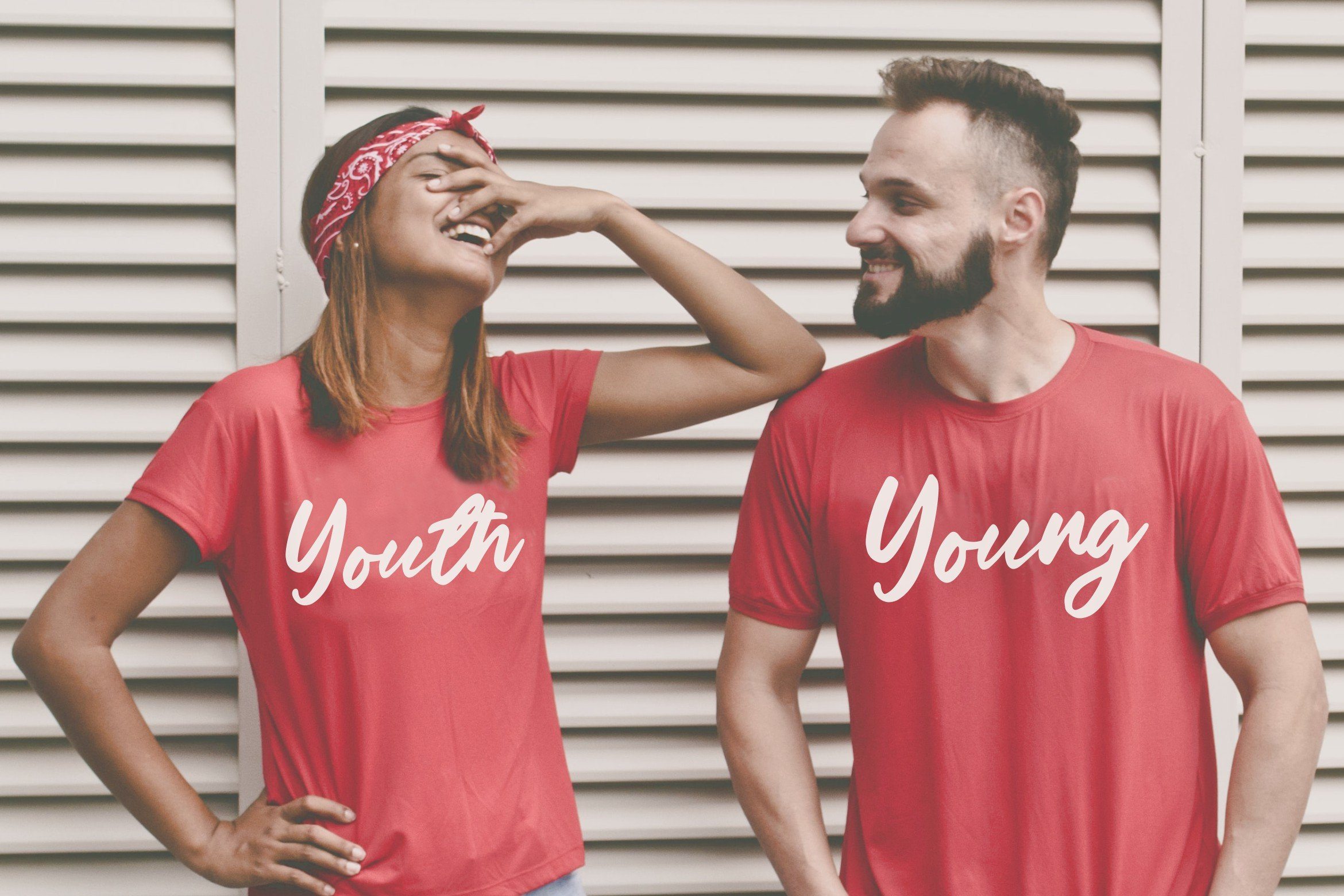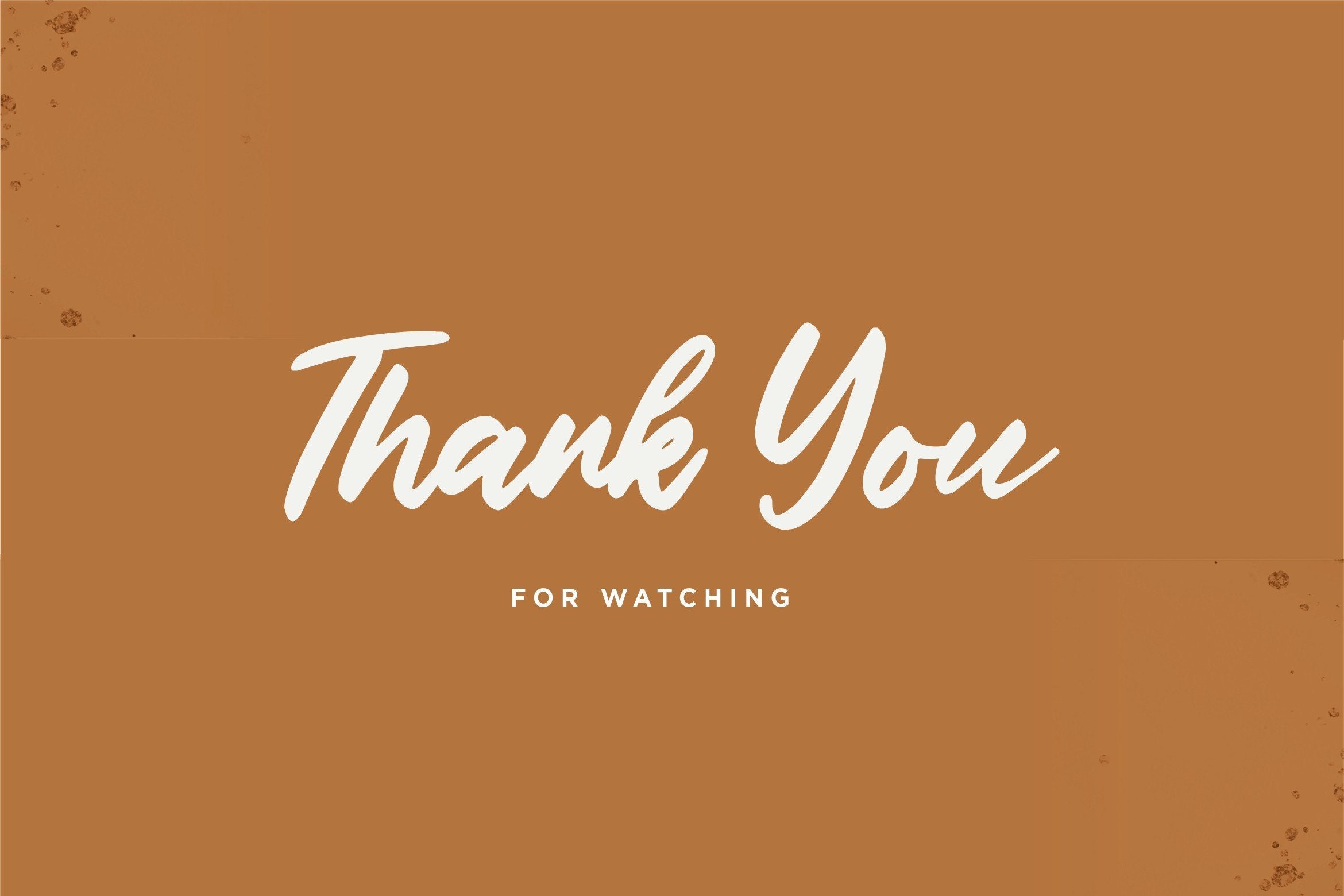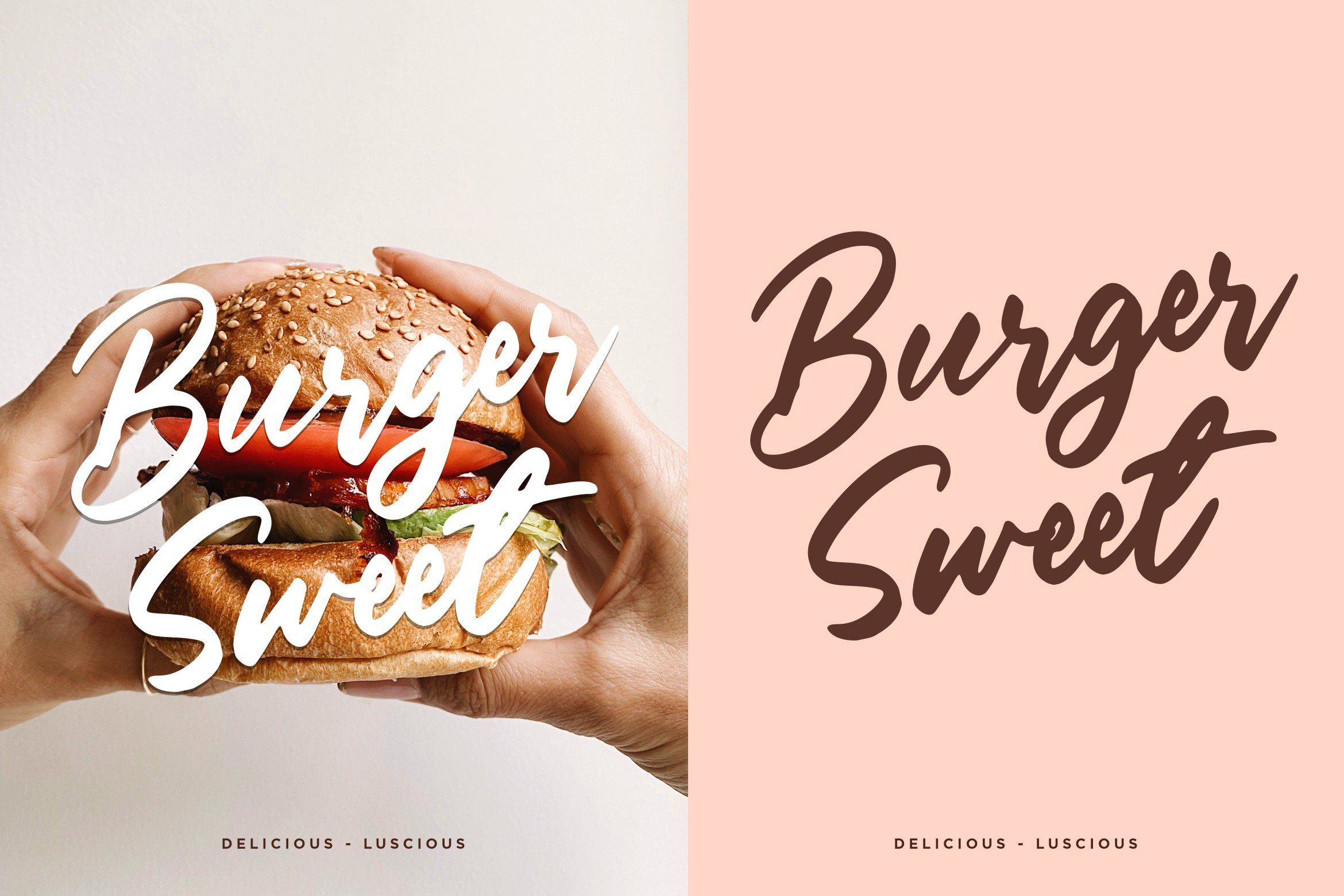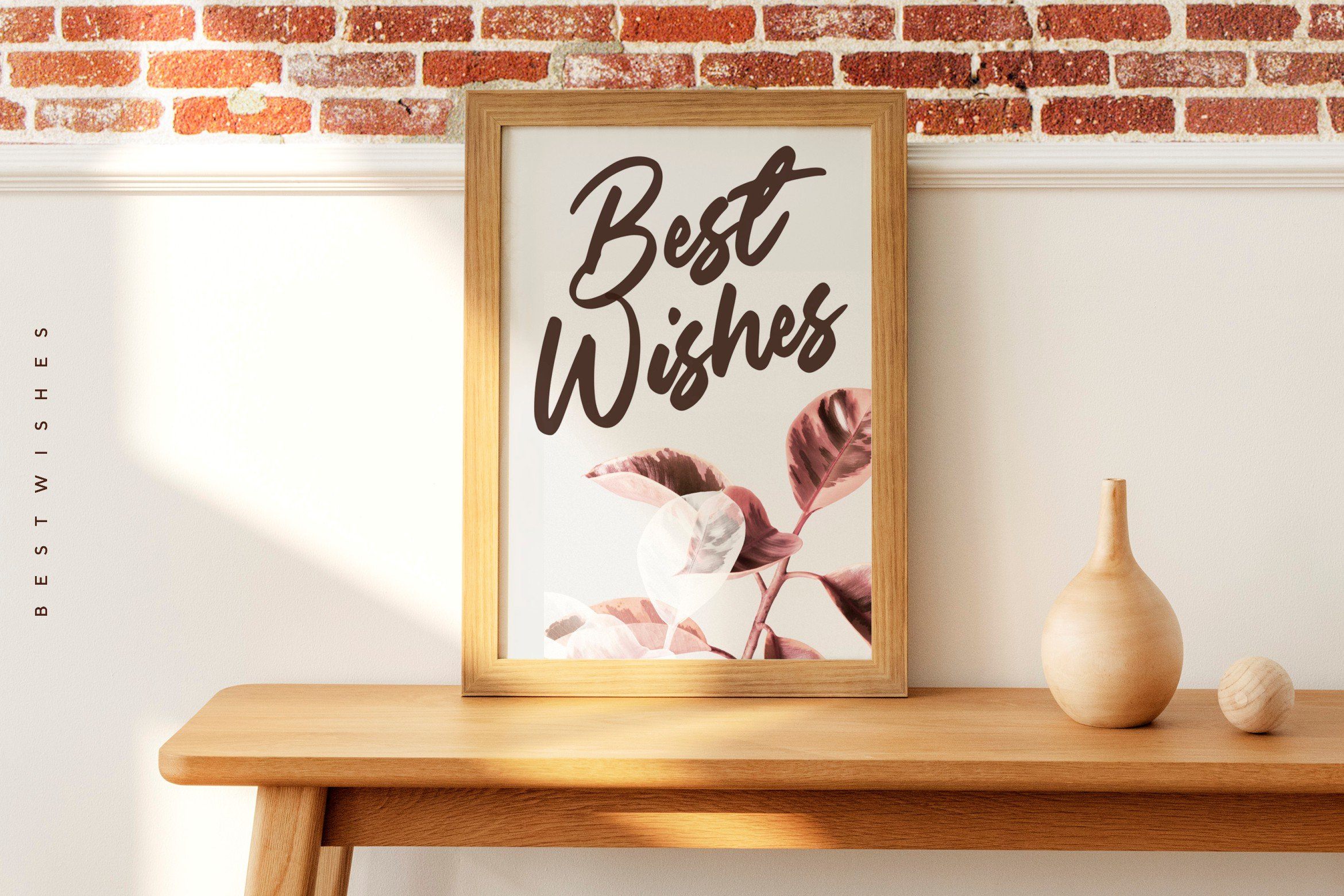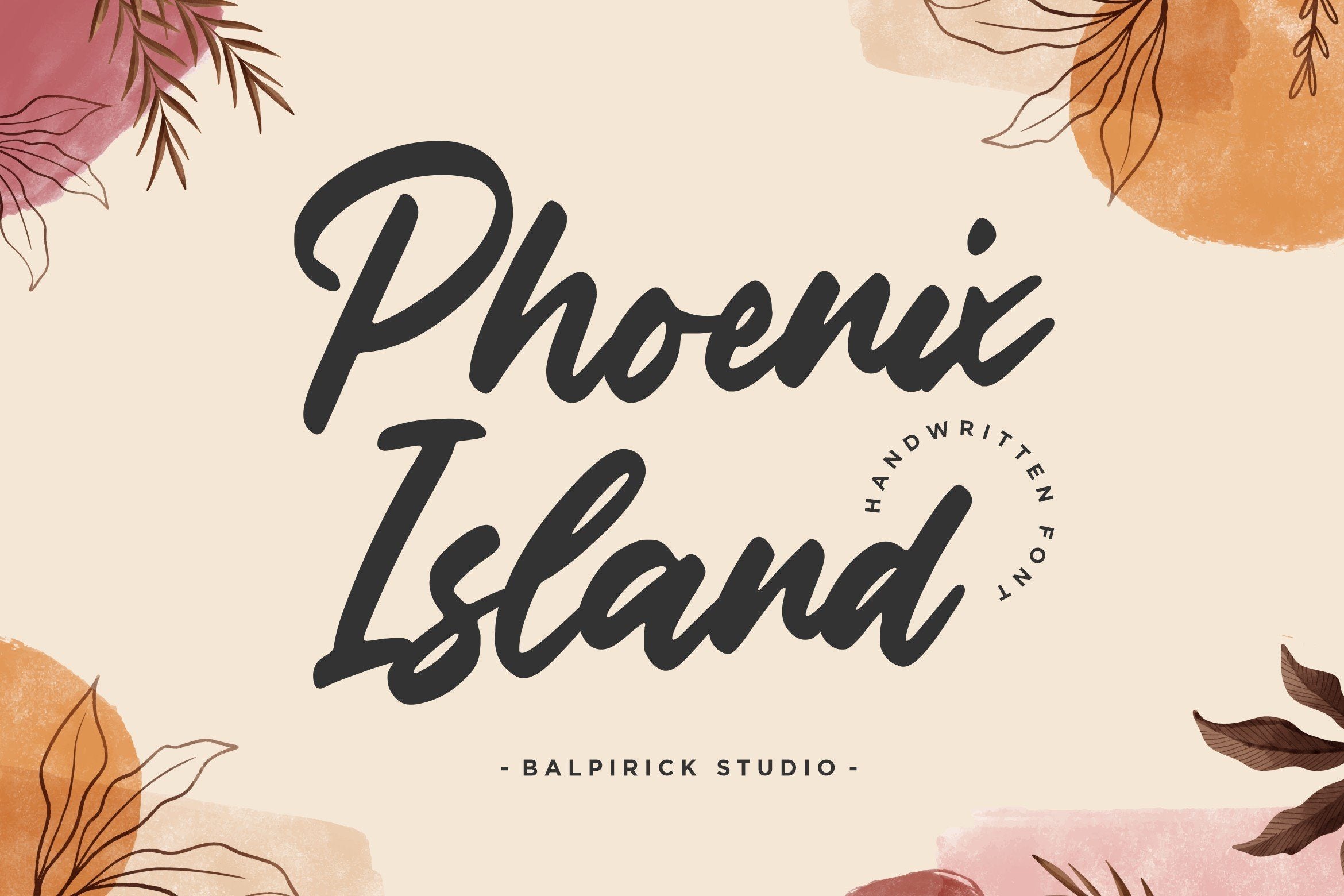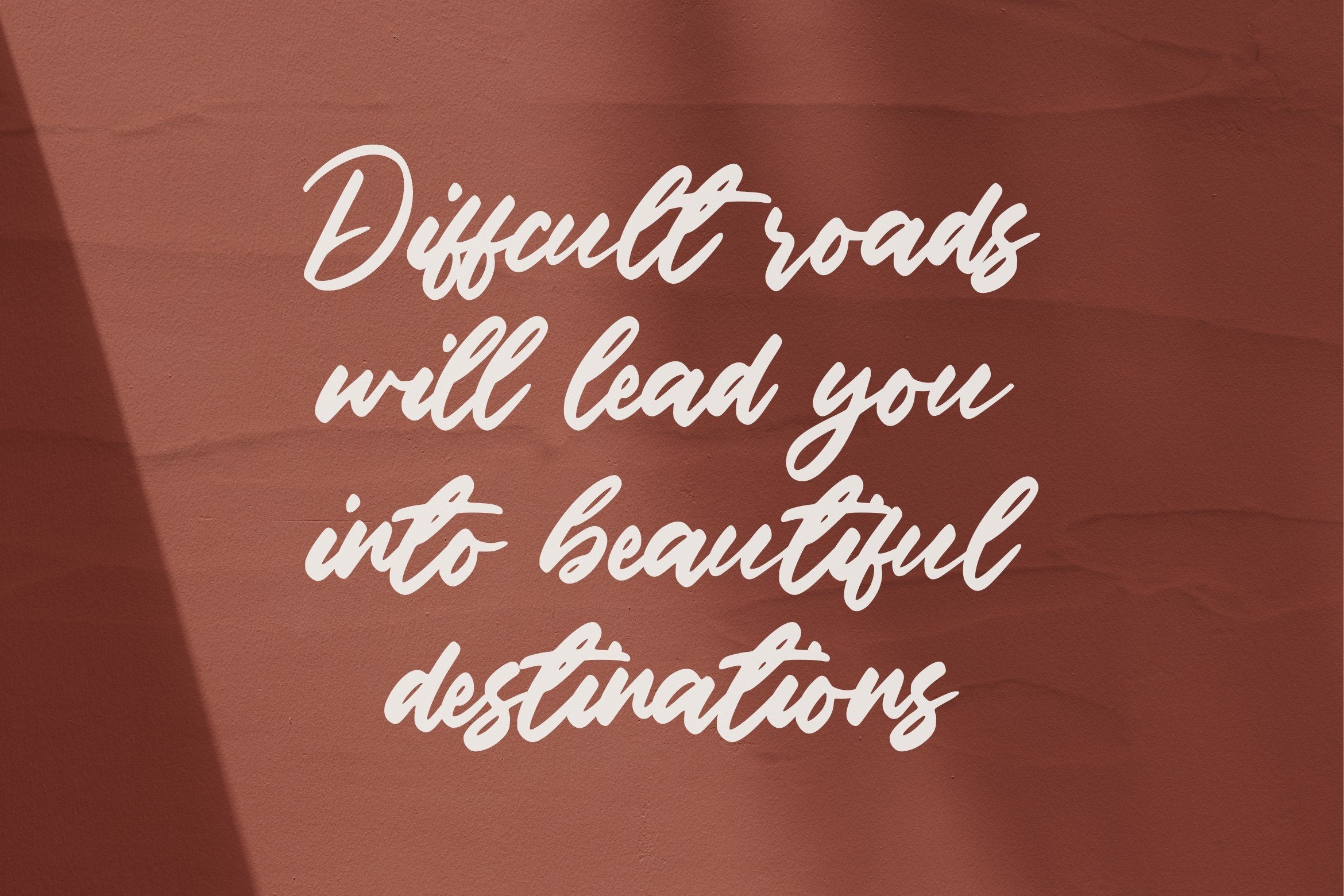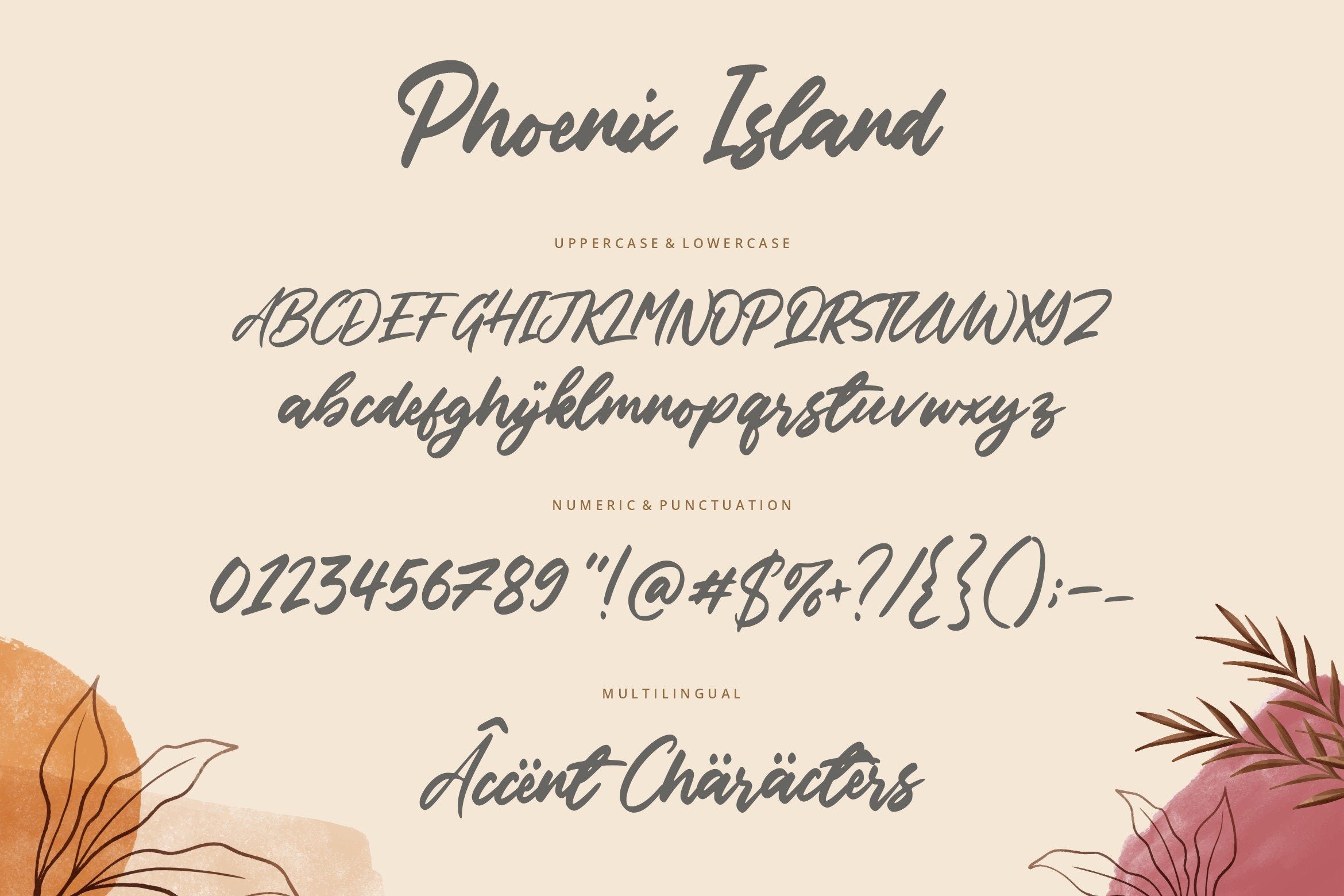
Phoenix Island Handwritten Font
About Phoenix Island Handwritten Font
Introducing by Balpirick Studio. Proudly Present, Phoenix Island Font. Phoenix Island is a Handwritten Font. Phoenix Island is a lovely and timeless handwritten font. It is the best choice for creating eye catching logos, branding and quotes. Every letter has a unique and beautiful touch, which will make your design come alive! This font includes TTF, OTF and WOFF, Phoenix Island also multilingual support. Enjoy the font, feel free to comment or feedback, send me PM or email. Thank you!